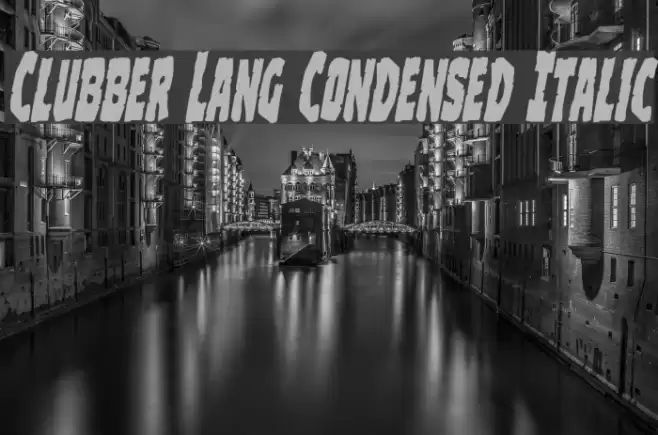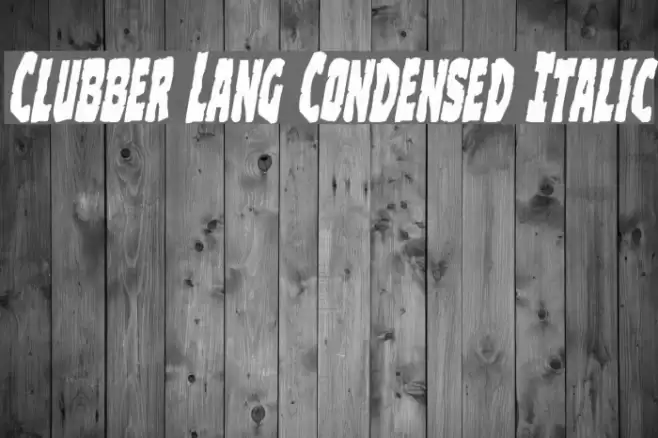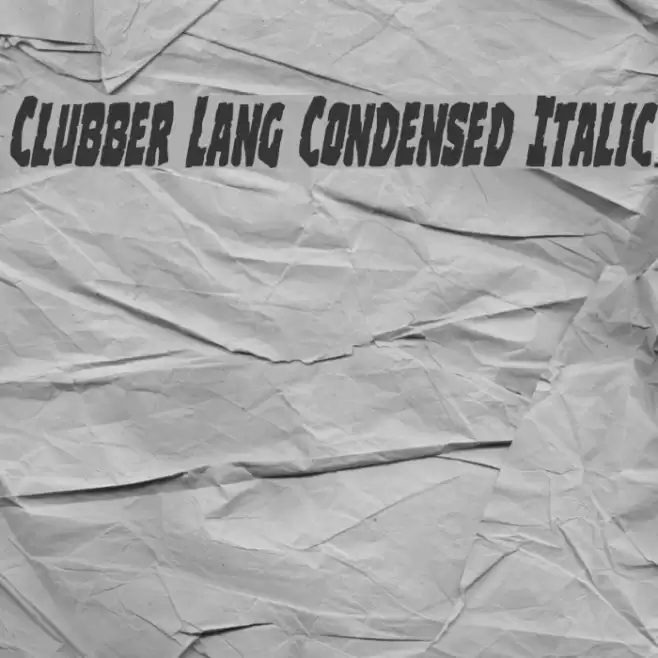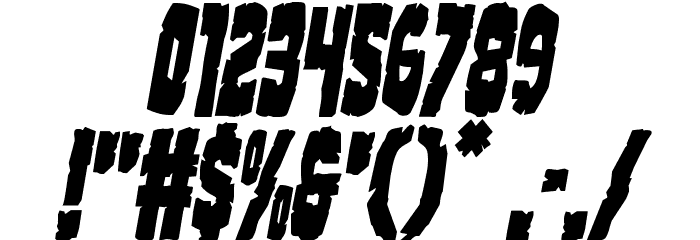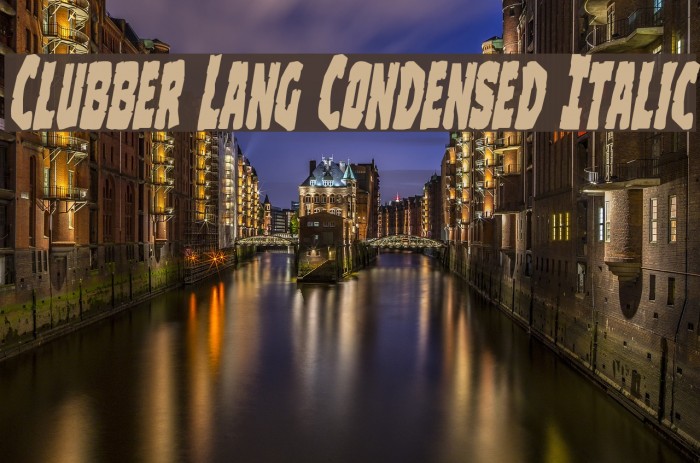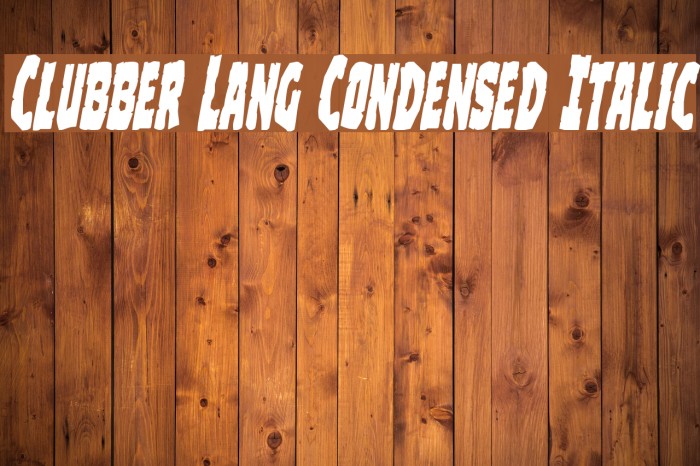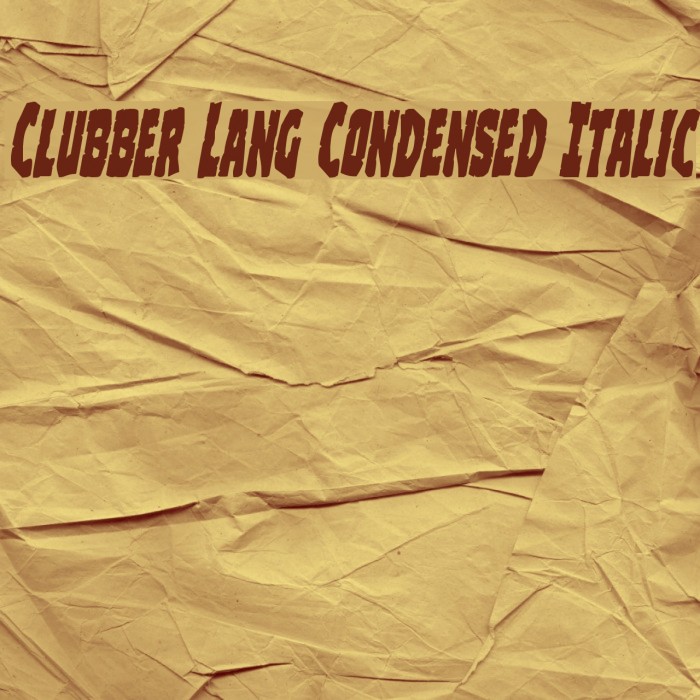
Clubber Lang Condensed Italic Font
Clubber Lang Condensed Italic Description
This font exhibits a bold and dynamic style with a condensed and italicized form. The characters are tightly packed, creating a sense of urgency and movement. The strokes are thick and robust, giving the font a strong presence. The angular and sharp edges contribute to its aggressive and energetic appearance. This font is well-suited for projects that require a bold statement or a sense of action and intensity. Its unique style makes it ideal for attention-grabbing headlines or impactful logos.
A bold, condensed, and italicized font with a dynamic and energetic style from Cartoon fonts.
- Proposed Projects: Ideal for sports branding, action movie posters, dynamic event flyers, and bold advertising campaigns.
- Character Spacing: Tight